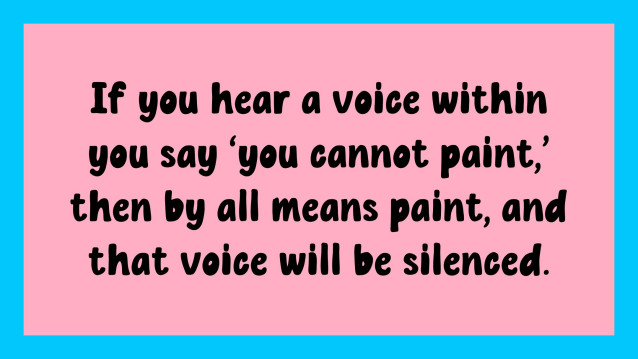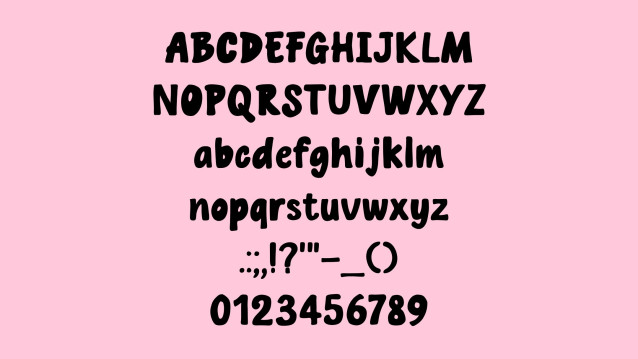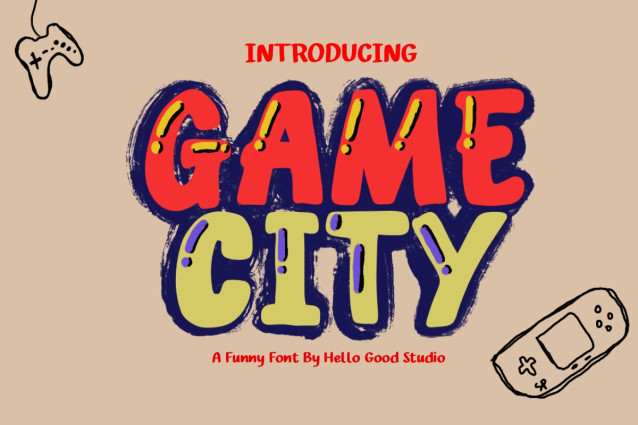
Game City Font
Game City Font is a simple and modern display font suitable for quotes, logos, headings, titles, and many more. Use it on any of your creative projects, and your designs will become outstanding!